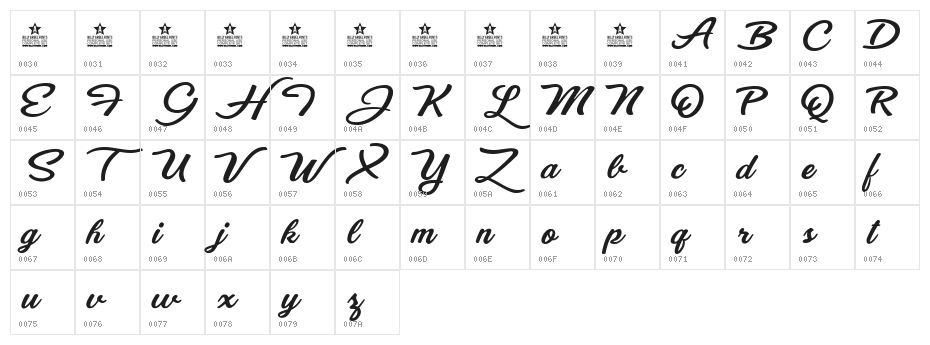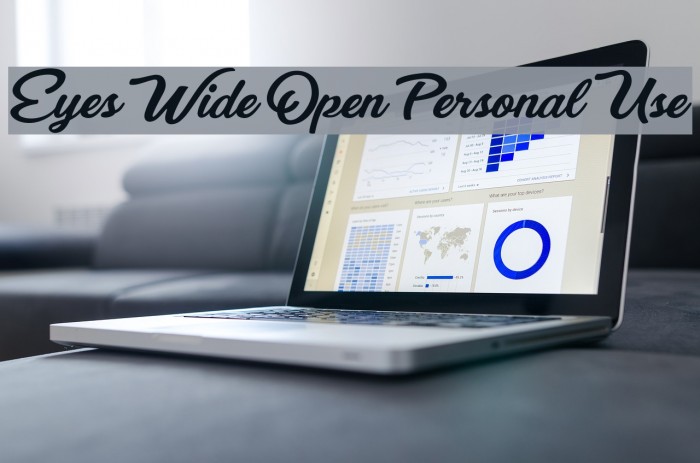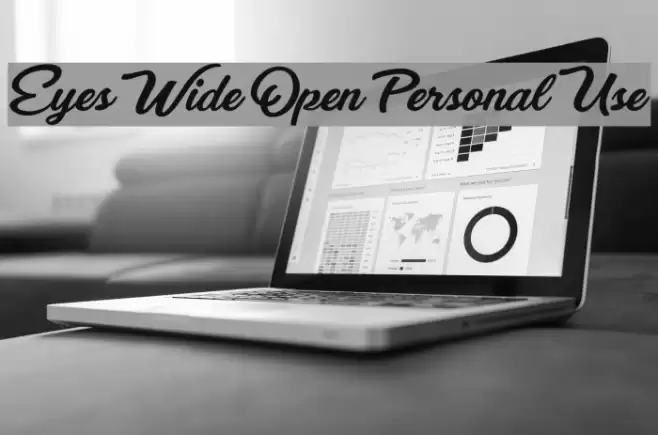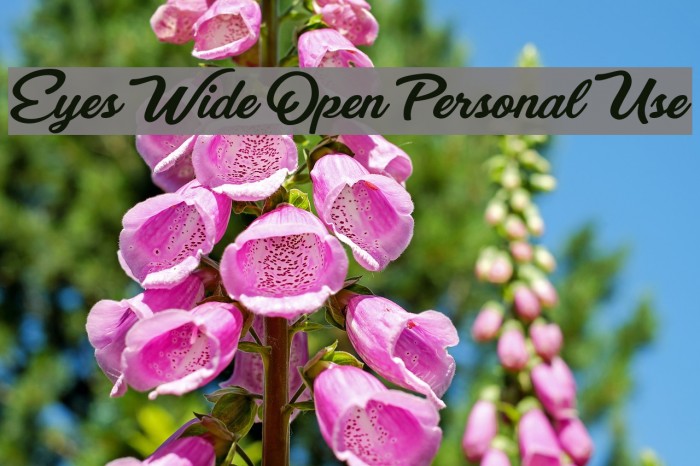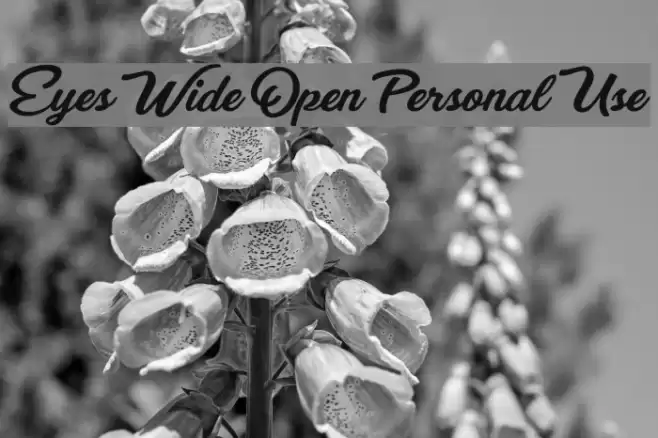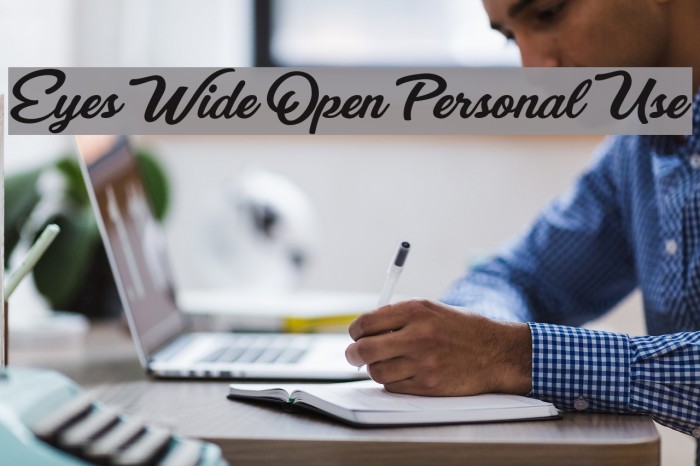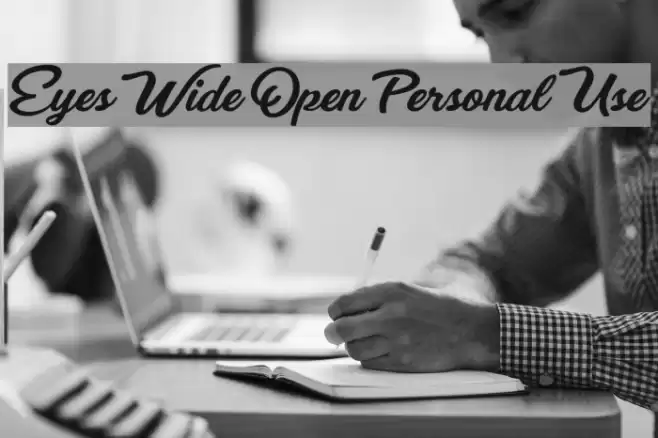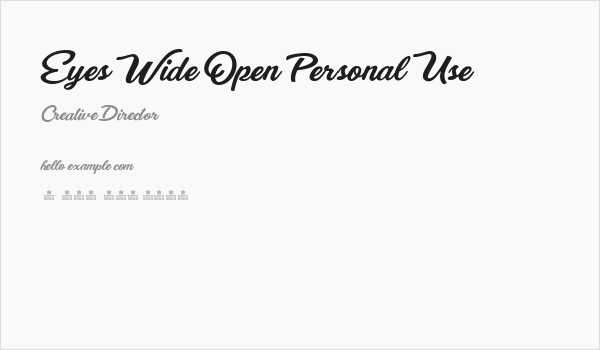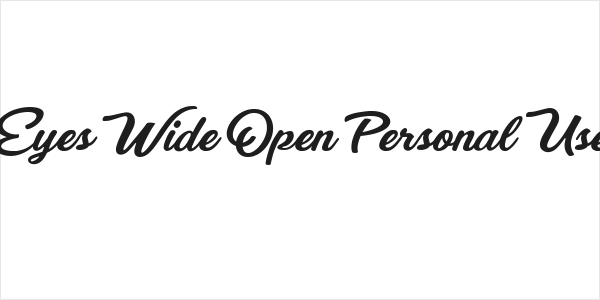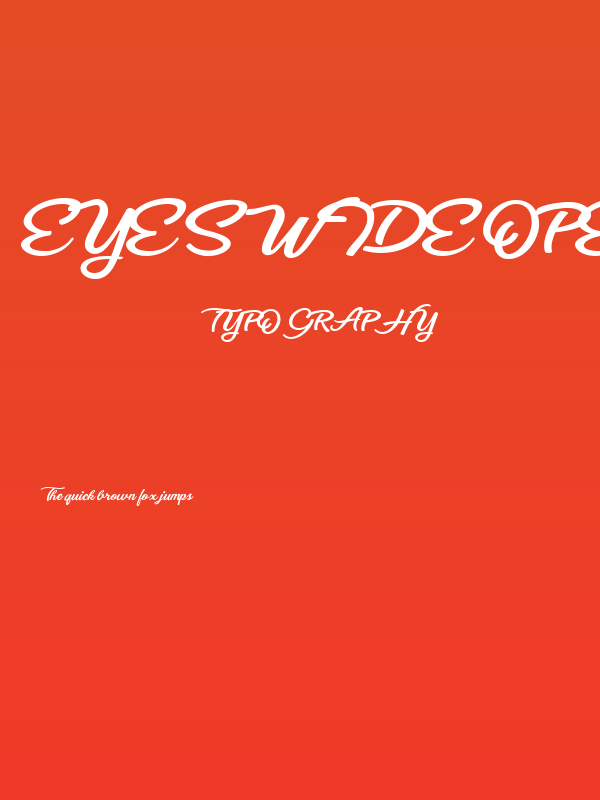
Eyes Wide Open Personal Use Font
Eyes Wide Open Personal Use Description
This font exhibits a flowing, cursive style with elegant, sweeping strokes that convey a sense of fluidity and grace. The uppercase letters are slightly more ornate, with extended loops and curves, while the lowercase letters maintain a consistent, smooth flow. The characters are closely spaced, enhancing the connected, handwritten appearance. The font's overall aesthetic is both sophisticated and approachable, making it suitable for a variety of creative projects.